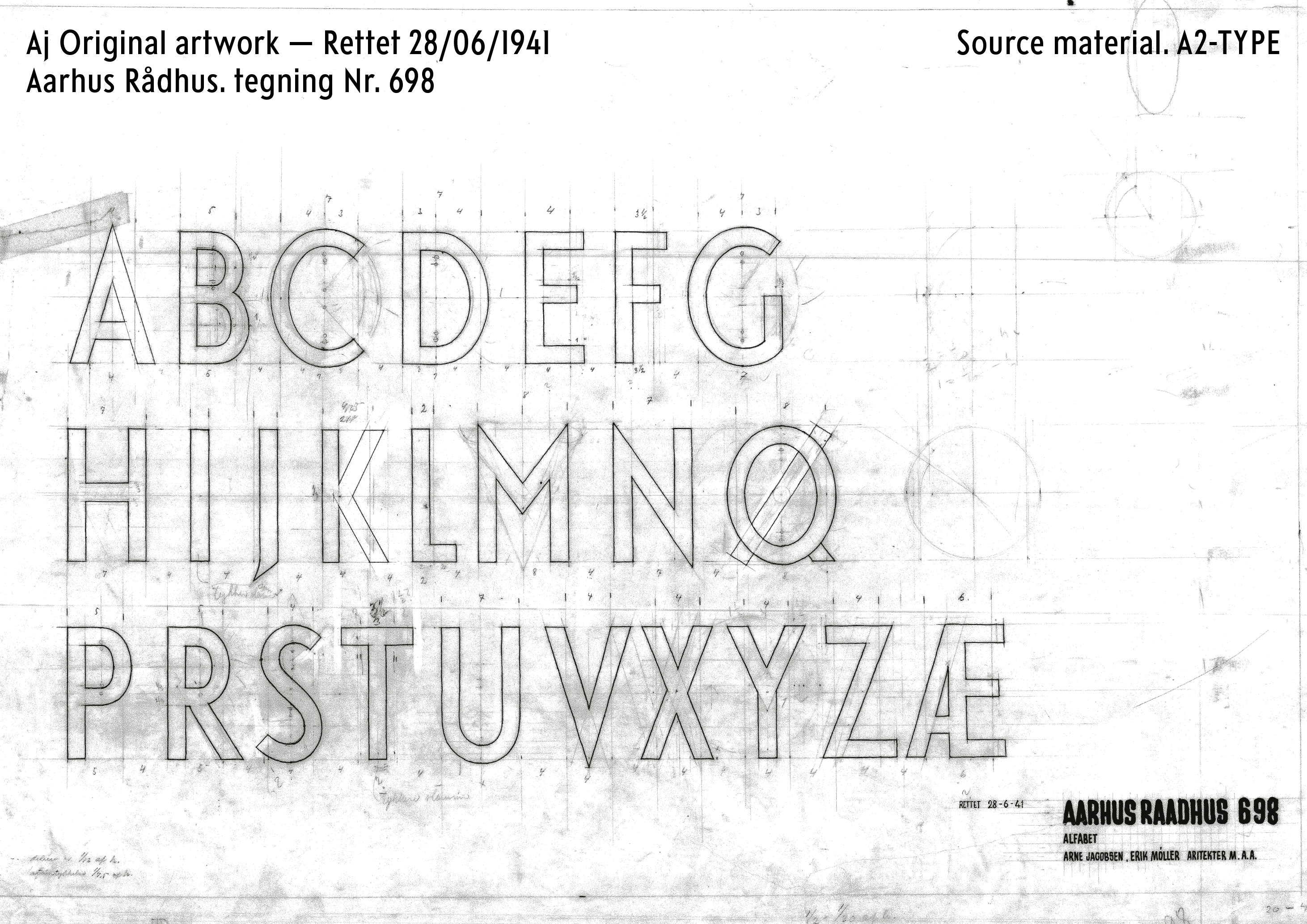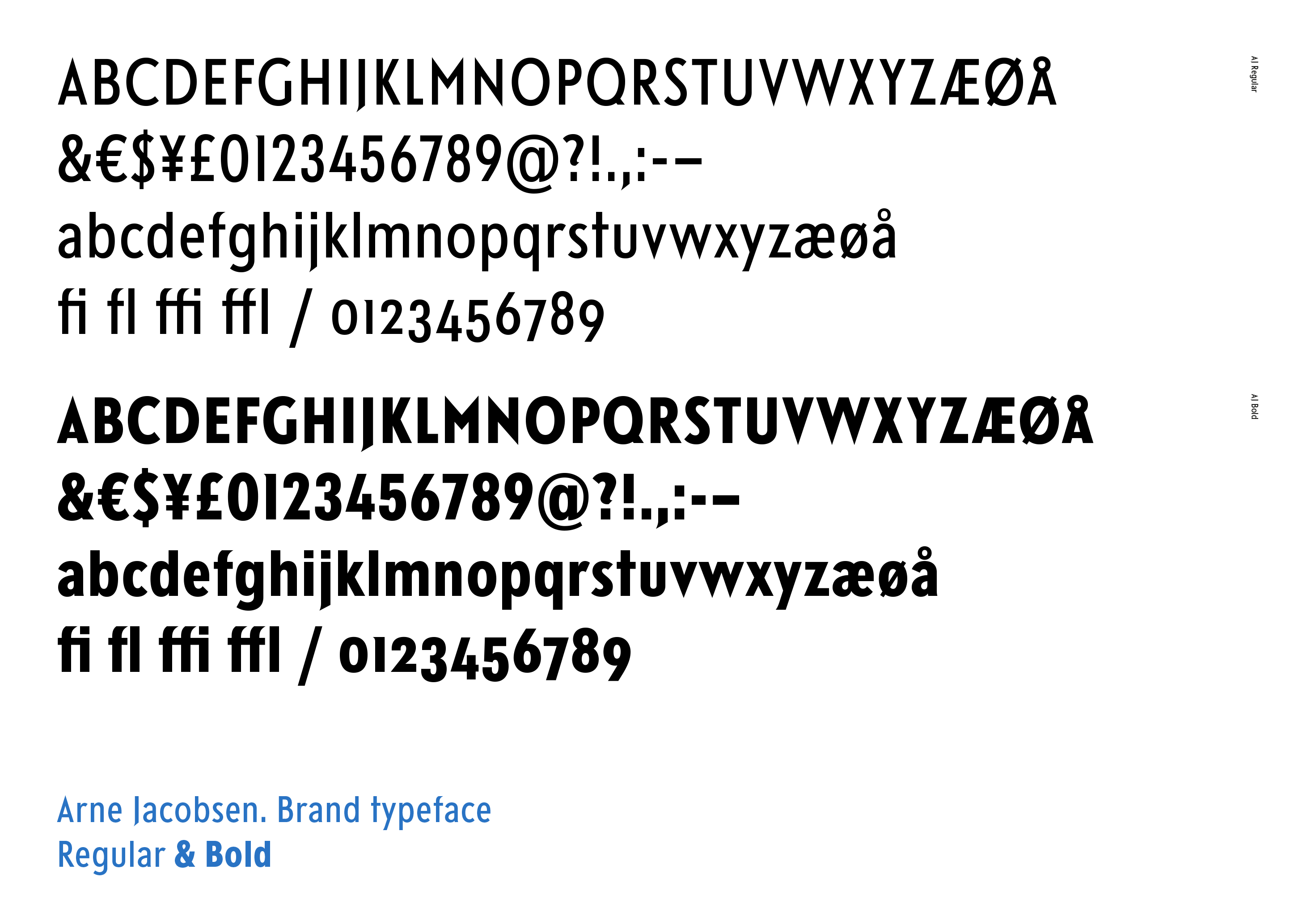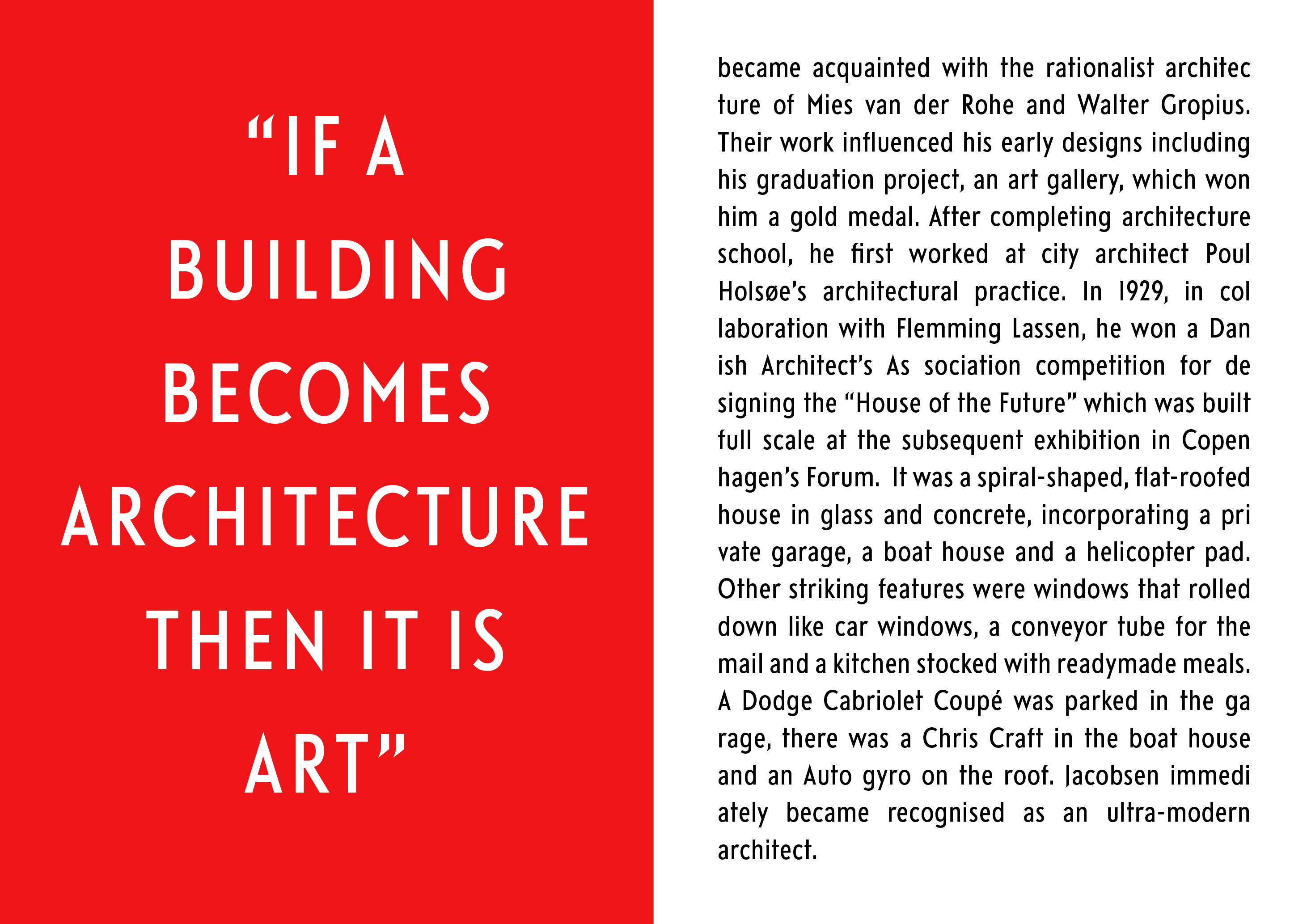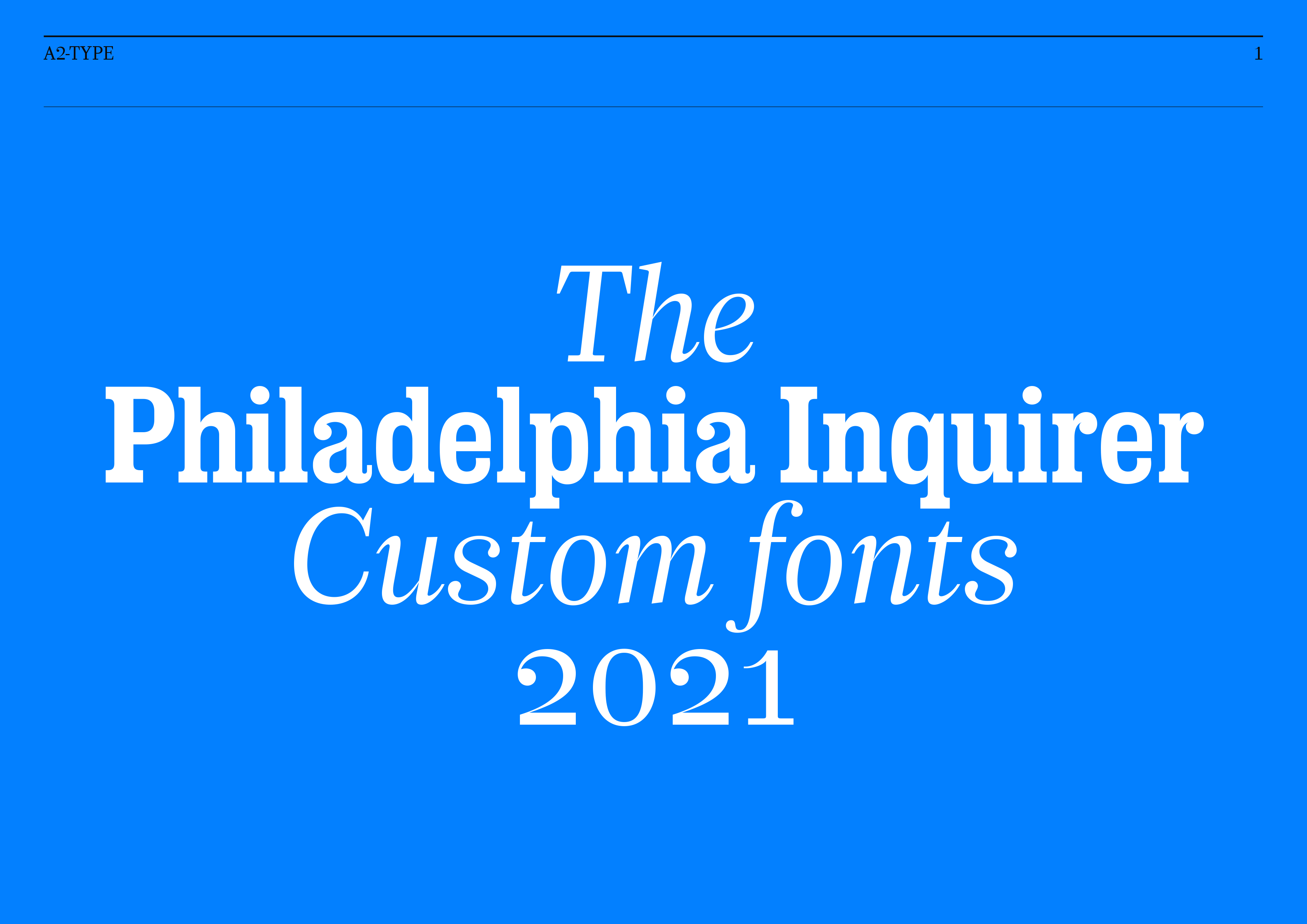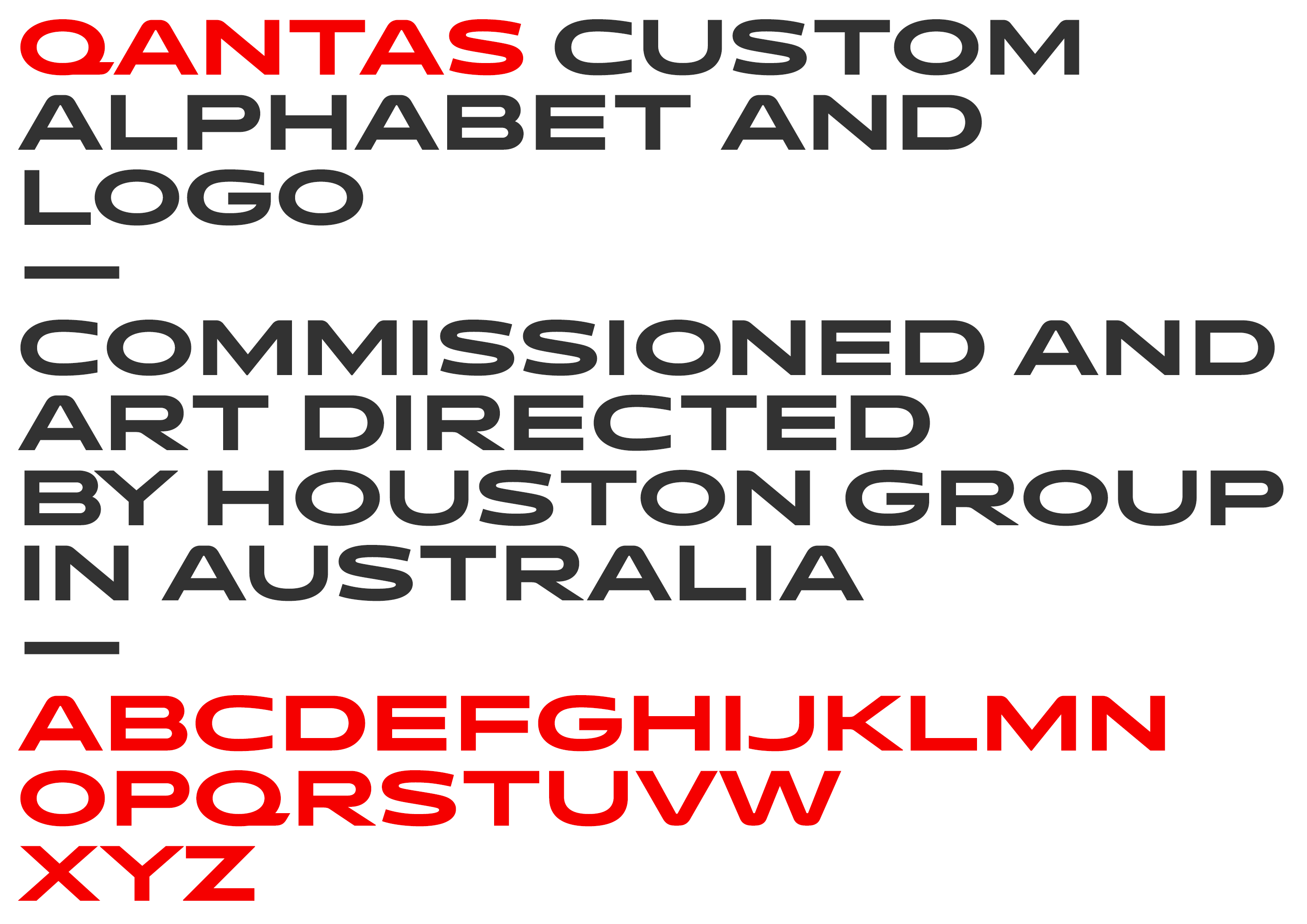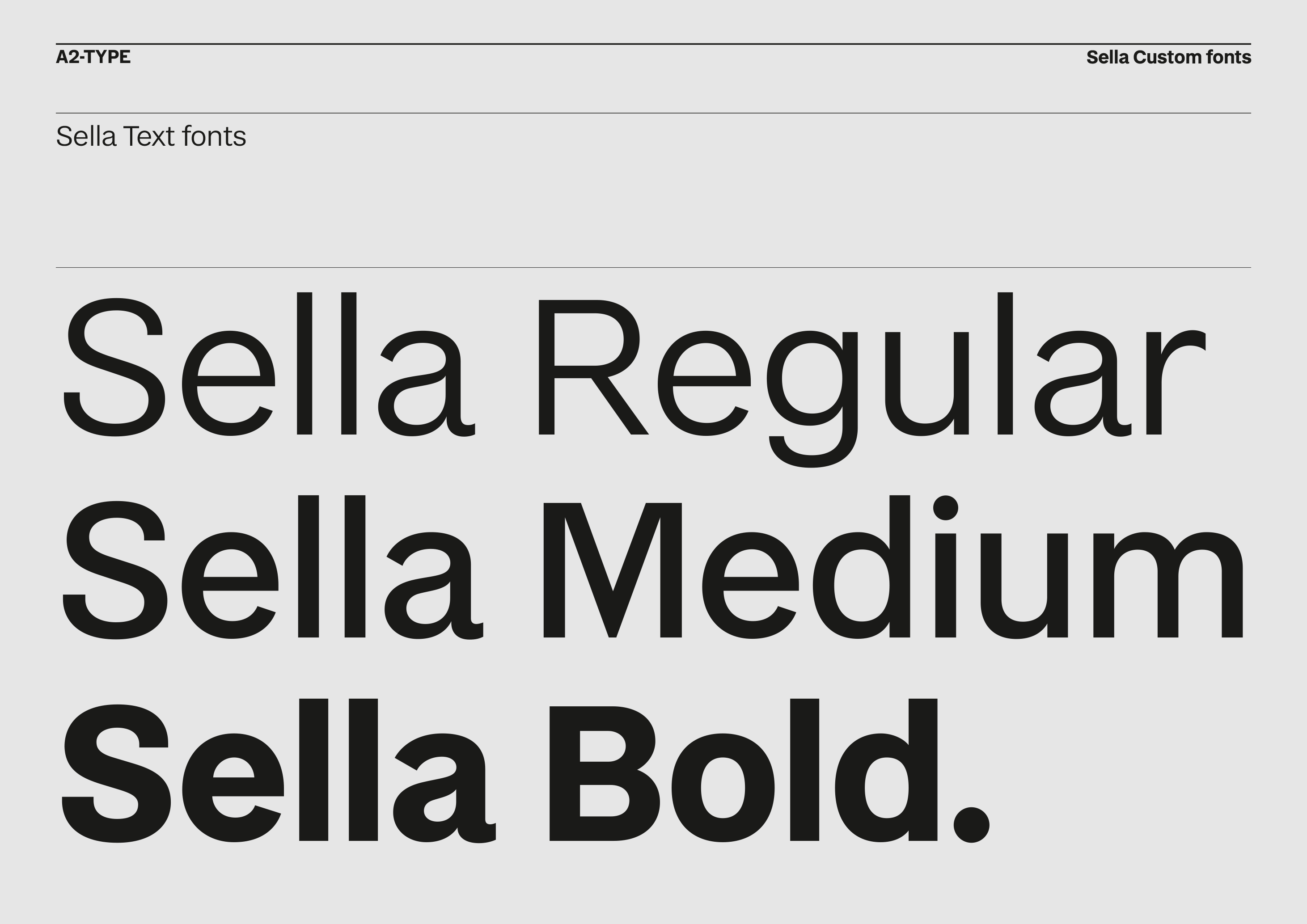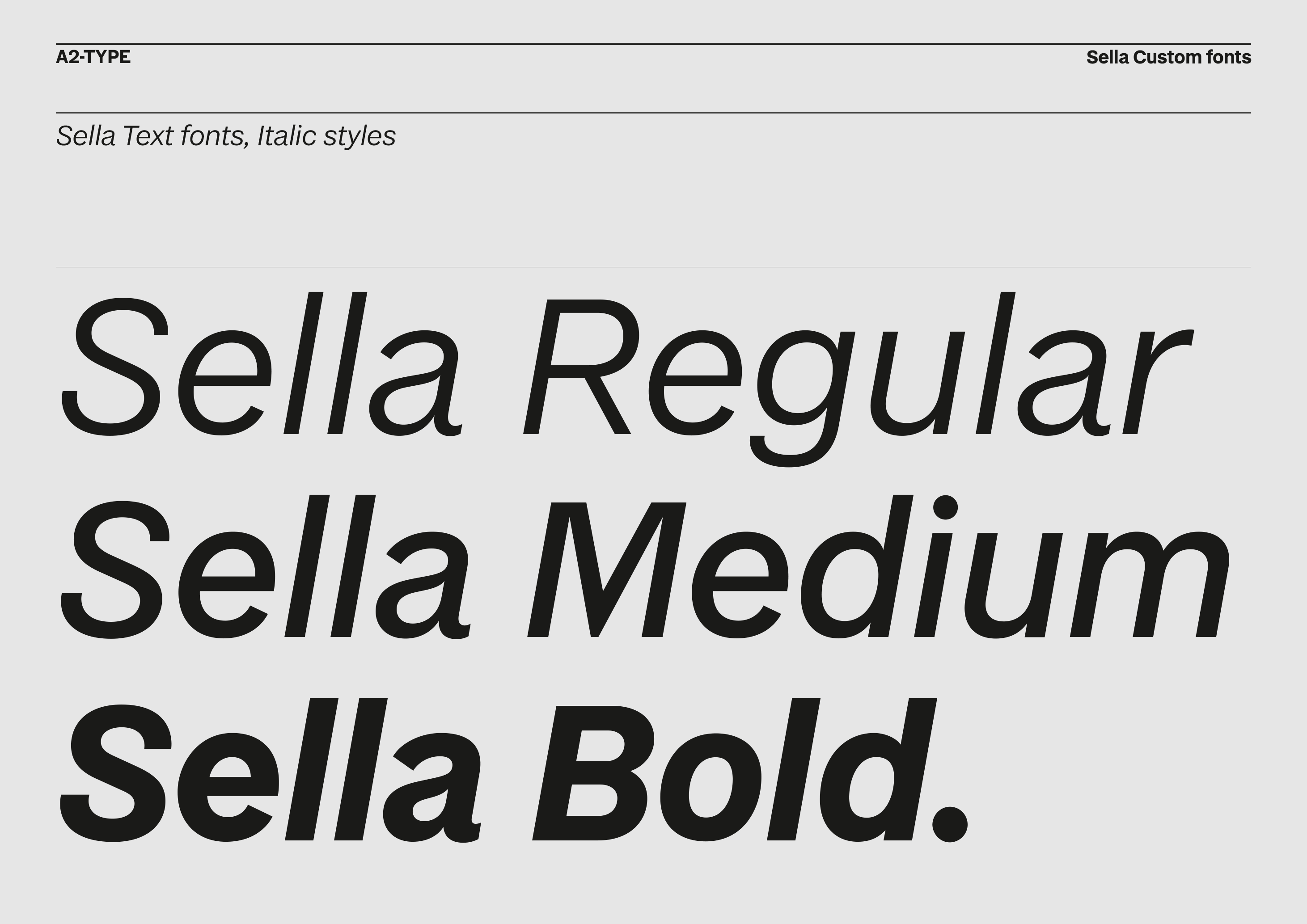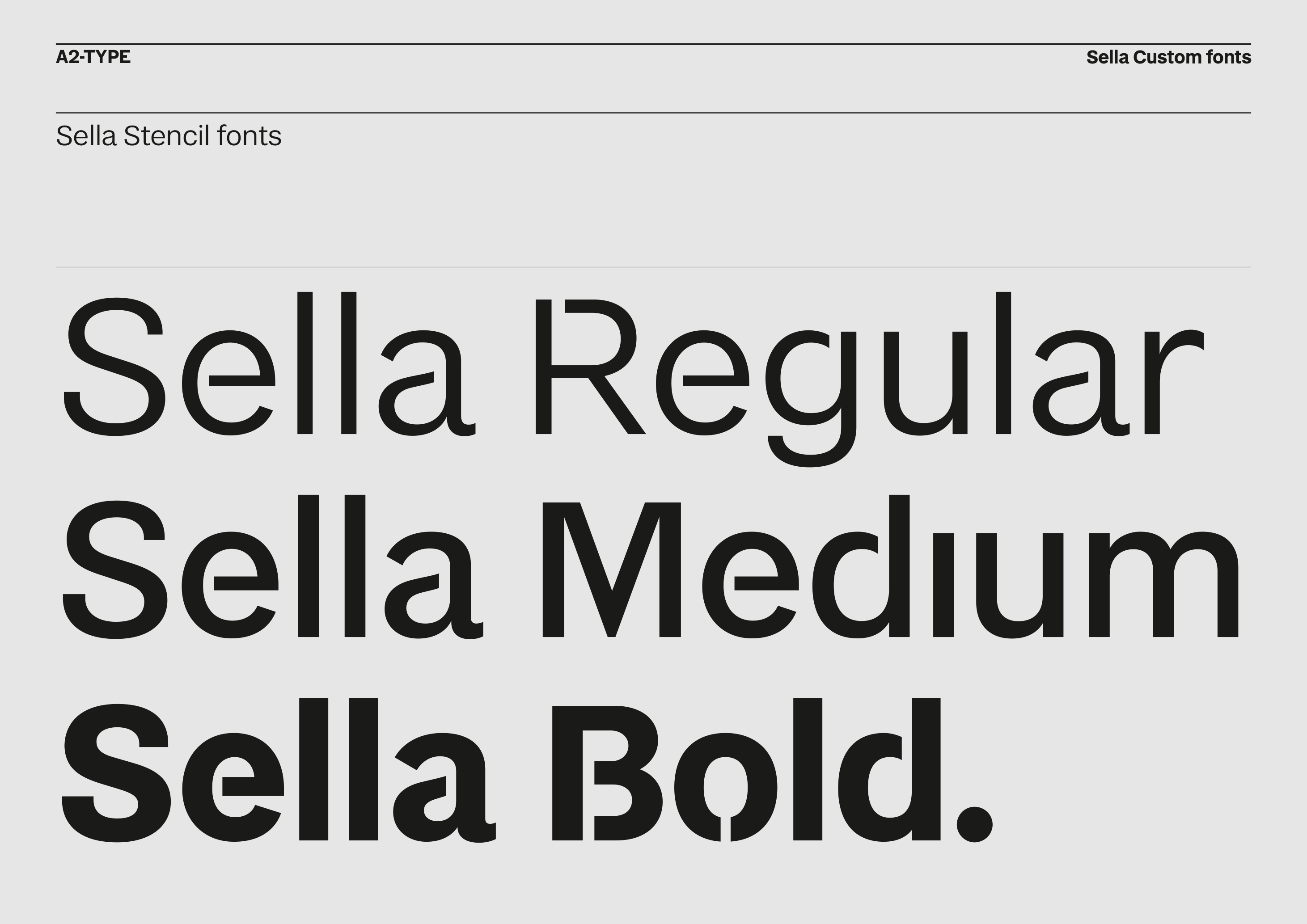
The Philadelphia Inquirer
Custom fonts for Luke Hayman’s (Pentagram, New York) redesign of The Philadelphia Inquirer. We designed a suite of new fonts consisting of Headline, Text, and Low contrast text fonts for web.
Founded in 1829, The Philadelphia Inquirer is the third-longest continuously operating daily newspaper in the US. With a mission of “asking on behalf of the people”, The Inquirer provides essential journalism for the diverse communities of the Philadelphia region and has won 20 Pulitzer Prizes. To help reach a growing audience, Pentagram has redesigned The Philadelphia Inquirer, improving the reader experience and modernising the paper’s processes. This major update — the first in nearly 30 years — is part of the Inquirer’s new editorial, design, and operations strategy across its multiple brand platforms. Read full case study here: https://www.pentagram.com/work/the-philadelphia-inquirer/story
Network Rail
Custom signage typeface designed for all stations across Network Rail. Network Rail approached us to create a new custom typeface that related to the original Rail Alphabet from the 1960s whilst also working seamlessly in today’s environment, including the new wayfinding and pictogram system designed by Spaceagency.
The new system of signs, pictograms, and typography has a lighter typographic voice than the signs from the 60’s and is far more readable than the current dark blue signs with reversed out type. The design process was one of collaboration; Margaret Calvert would draw by hand, and we would work on-screen. With input from Network Rail, Spaceagency, and station architect WestonWilliamson+Partners, we arrived at Rail Alphabet 2, a highly legible and modern typeface with a clear historical lineage.
Rail Alphabet 2 is a comprehensive typeface consisting of 7 fonts: a special weight designed for signs, with three font styles, including Italics, crafted for print, online, and mobile. Rail Alphabet 2 has sharp junctions and slightly narrower proportions than the original Rail Alphabet. The project was featured in the exhibition ‘Margaret Calvert: Woman at Work’ at the Design Museum, 21 October 2020 – 22 August 2021. All images © A2-TYPE + Spaceagency. ‘Certificate of Typographic Excellence’ in the 24th Annual Type Directors Club, NYC Typeface Design Competition.
The Athletic
An Inline custom typeface for the coolest brand in sports journalism. Based on our original font, Regular Slab, we designed a new inline version for the Athletic brand. The project was commissioned by Gretel in NYC and conceived in collaboration with their design team.
The Inline typeface is complimented by our Regular Slab Bold typeface, used by The Athletic across their entire brand. Read full case study here. All images © Gretel NYC. About the client: The Athletic is a subscription-based sports website that provides ad-free national and local coverage in 47 North American cities as well as the United Kingdom.
Weekendavisen
Custom fonts for Danish Weekly Weekendavisen. Broadsheet newspapers are becoming rare these days. What is rarer is it to be commissioned to draw custom fonts for such a newspaper. Please welcome the beautiful redesign of Weekendavisen, the Danish weekly, published since 1749.
We are proud to reveal our new font system for Weekendavisen – drawing inspiration from Danish typographic history (Knud Valdemar Engelhardt and Gunnar Biilmann Petersen), we designed WEA Display, Sans, and Serifs fonts for all aspects of the newspaper.
We also redesigned the Masthead and faithfully restored the Berlingske crest, after Biilmann Petersen’s original design, in collaboration with Martin Mörch (master engraver). The newspaper is expertly and beautifully art directed by Design Director Katinka Bukh and her talented in-house design team. Here is a great introduction and explanation of the redesign by Bukh (if you read Danish). Editor-in-chief Martin Krasnik gives a great introduction to the redesign here! (please use Google translate if you want to read it in English). Our custom fonts won a Tokyo Type Directors Club Prize in 2021, and the newspaper was named World’s Best Designed in the 42nd best of Print News Design Competition 2021 by SND. The fonts are now available for commercial licensing. Please enquire (email us directly).
The Queen of Denmark
We are proud to announce that we co-designed the official logo(s) for Her Majesty the Queen of Denmark to mark the celebration of her 80th birthday in April 2020.
The two logo’s will occupy their own space. The ‘monogram’ version will be used for HM the Queen’s private celebrations at the castle. The ‘fireworks’ version of the logo, along with the associated portrait of HM the Queen, will be used for all media purposes.
Design: Søren Varming & Henrik Kubel
Typeface: Custom version of Biilmann from A2-TYPE
Banca Sella
A custom font system for Italian Bank Sella. Commissioned by, and designed in collaboration with, our friends at renowned Italian design studio Tassinari/Vetta.
A2-TYPE delivered a suite of custom fonts comprising of a sans in 3 weights: Regular, Medium, and Bold, with accompanying Italics, plus a set of unique Stencil fonts. The origins of Gruppo Banca Sella has its roots in 1886, when Gaudenzio Sella, inspired by the principles of his uncle Quintino Sella, along with six other brothers and cousins, founded in Biella the Gaudenzio Sella & C.